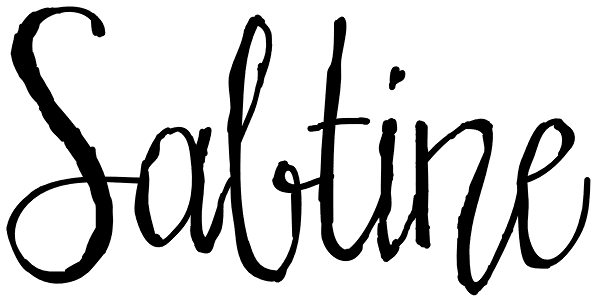
Sabtine
Sabtine is a somewhat grungy connecting handwriting font - Watch it bounce up and down! I've included a good handful of autoligatures and swashes. You will need to use OpenType supporting applications to use the autoligatures and swashes.